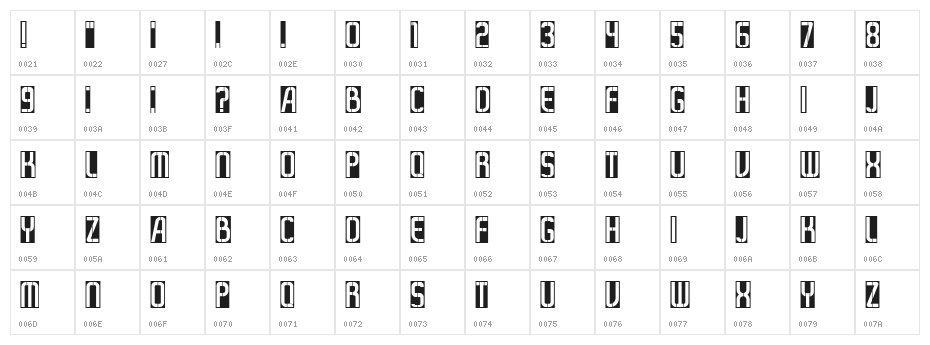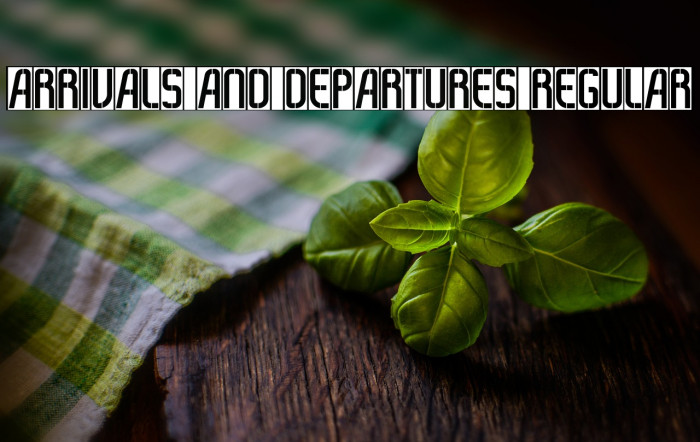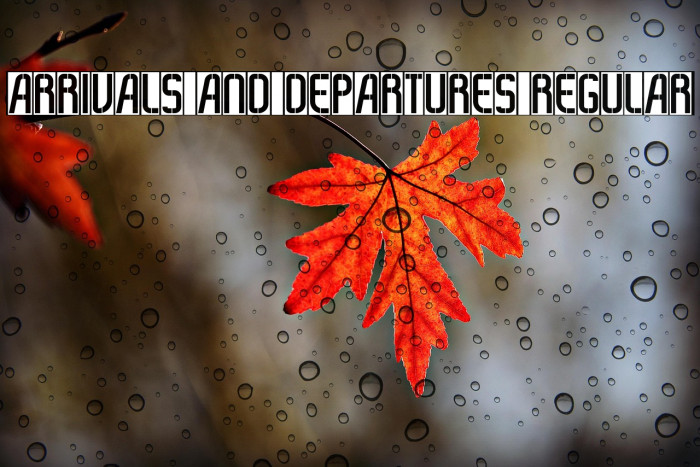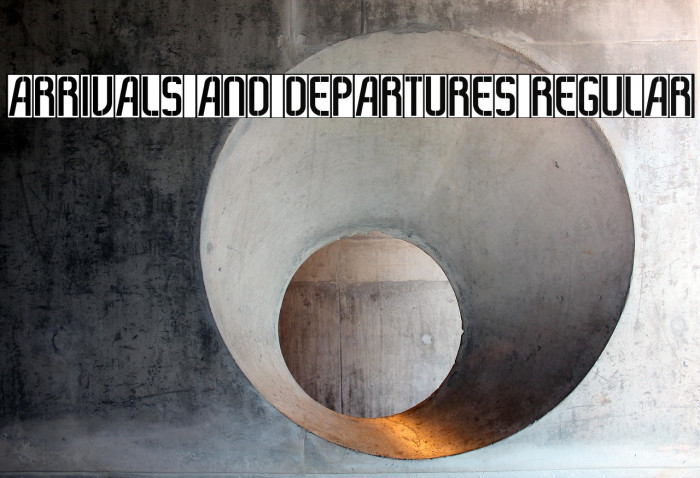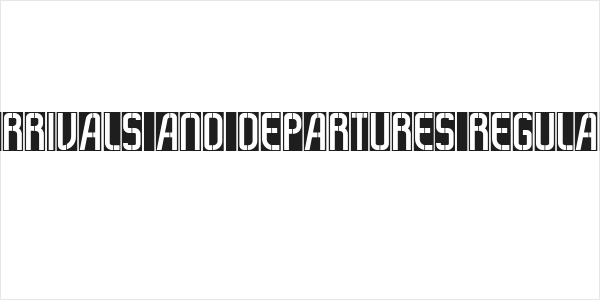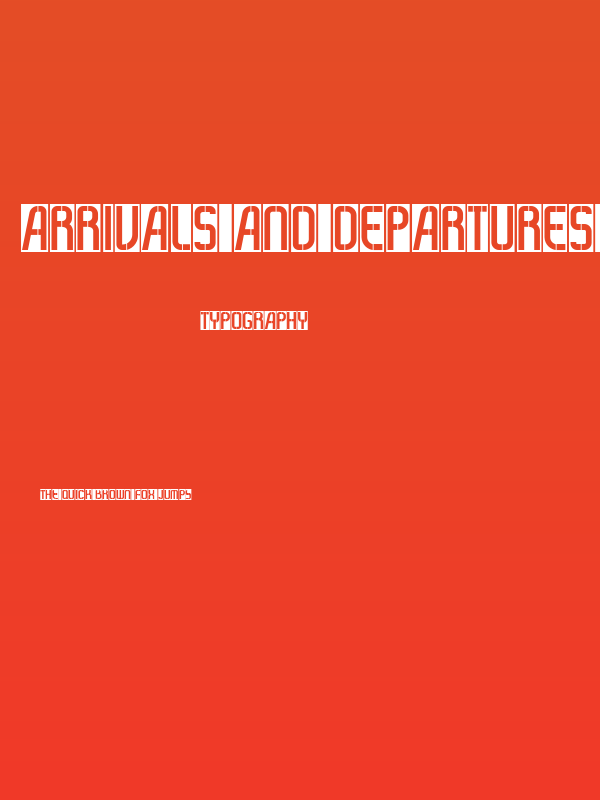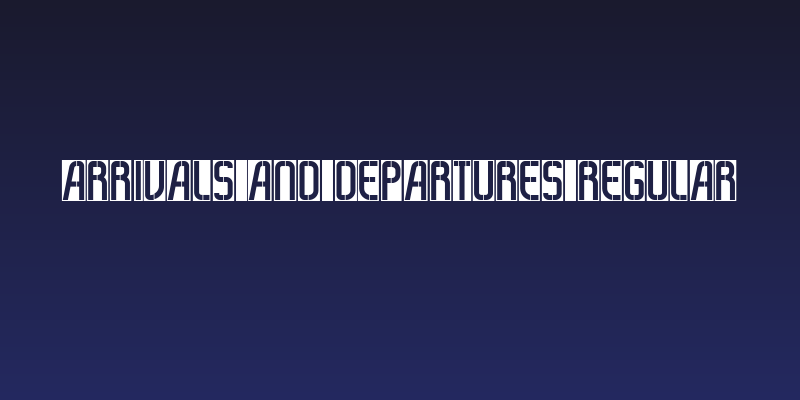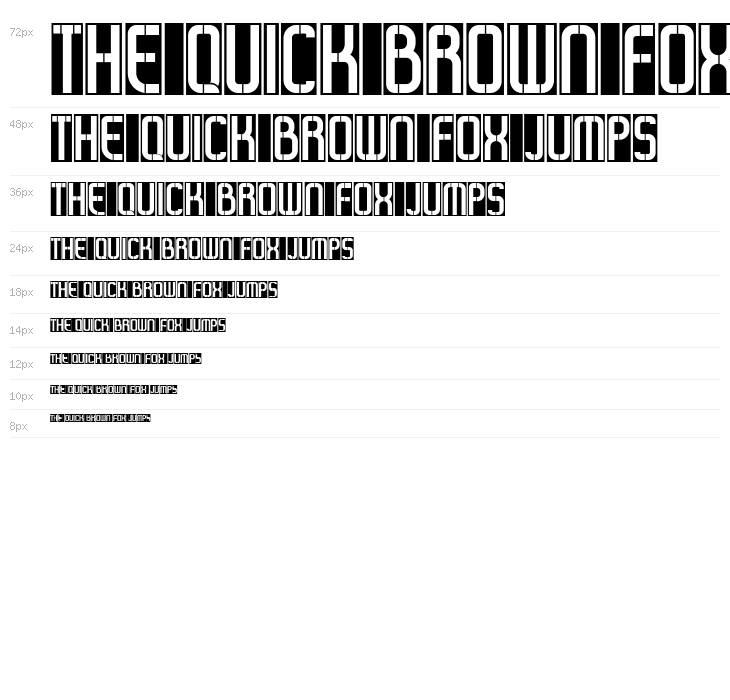
Arrivals And Departures Regular Font
Arrivals And Departures Regular Description
This font features a bold, geometric design with a distinct stencil-like appearance. Each character is composed of thick, blocky segments with sharp angles and clean lines, creating a modern and industrial feel. The use of negative space within the characters enhances readability while maintaining a unique aesthetic. The uppercase letters are uniform in height, contributing to a cohesive and structured look. The numerals and special characters follow the same design principles, ensuring consistency across all glyphs. This font's striking style makes it suitable for attention-grabbing headlines and impactful graphic design projects.
Proposed ProjectsIdeal for posters, signage, branding, and any project requiring a modern, industrial look.